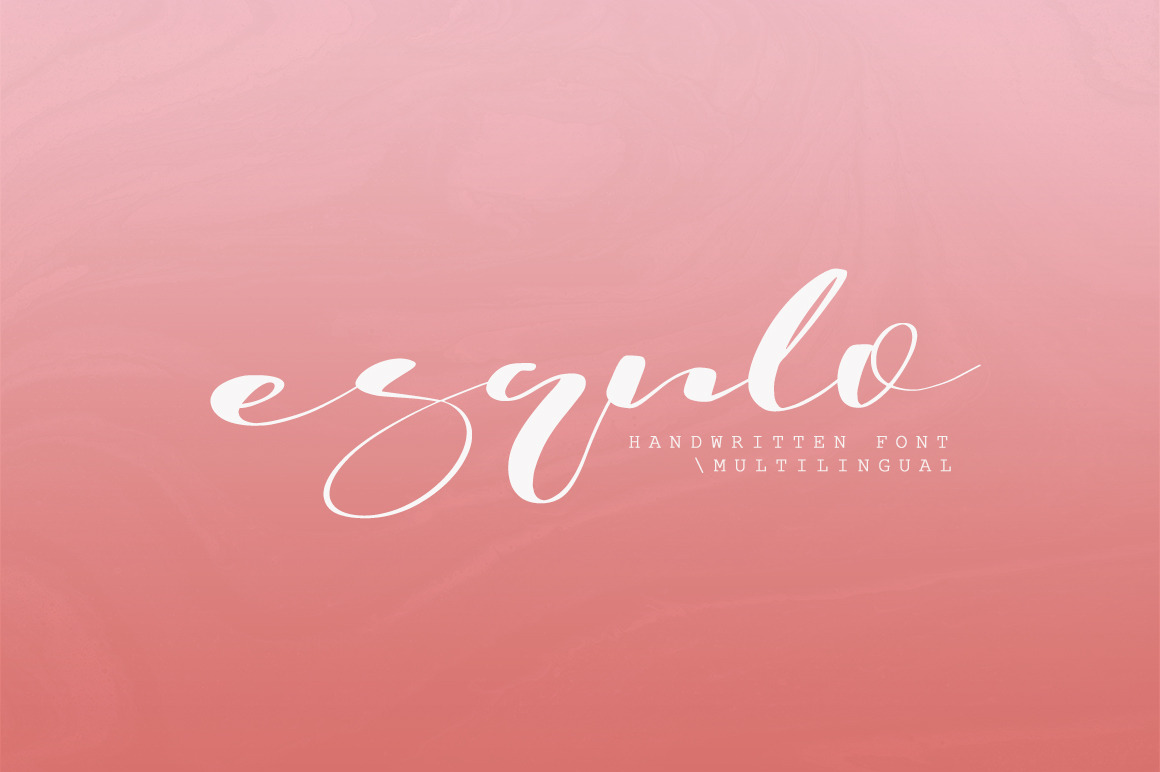
Esqulo| Cyrilliс and Latin Font
Esqulo| Cyrillic and Latin Font is perfect for international business branding, multilingual publishing houses, global corporate communications, diplomatic institution materials, cross-cultural marketing campaigns, international educational programs, multinational company identities, and worldwide digital platforms. This versatile typeface excels in applications where linguistic diversity and global communication are essential for creating inclusive and professional brand experiences that bridge cultural boundaries.
What makes Esqulo| Cyrillic and Latin Font truly exciting is its sophisticated embodiment of international communication and multilingual design excellence that captures the essential unity between Latin and Cyrillic scripts while maintaining distinctive cultural character. The font features harmoniously designed letterforms with consistent typographic DNA across both alphabets and culturally-appropriate character details that ensure seamless readability in both Western and Eastern European languages. Its international personality and multilingual character create an immediate sense of global competence and cultural sensitivity that resonates with audiences seeking authentic cross-cultural communication and inclusive design solutions. The typeface's bilingual heritage and international appeal make it perfect for brands wanting to convey global reach, cultural respect, and connection to the diverse linguistic landscape of international business and cultural exchange.
The Esqulo| Cyrillic and Latin Font family includes comprehensive character sets for both scripts with multiple weights, complemented by cultural alternates and international decorative elements. The font offers extensive multilingual support with diplomatic symbols, cross-cultural ligatures, and international styling details that enhance its global aesthetic. Additional graphic elements including cultural patterns, international motifs, diplomatic ornaments, and multicultural flourishes provide designers with complete branding tools rooted in international communication and cross-cultural understanding principles.